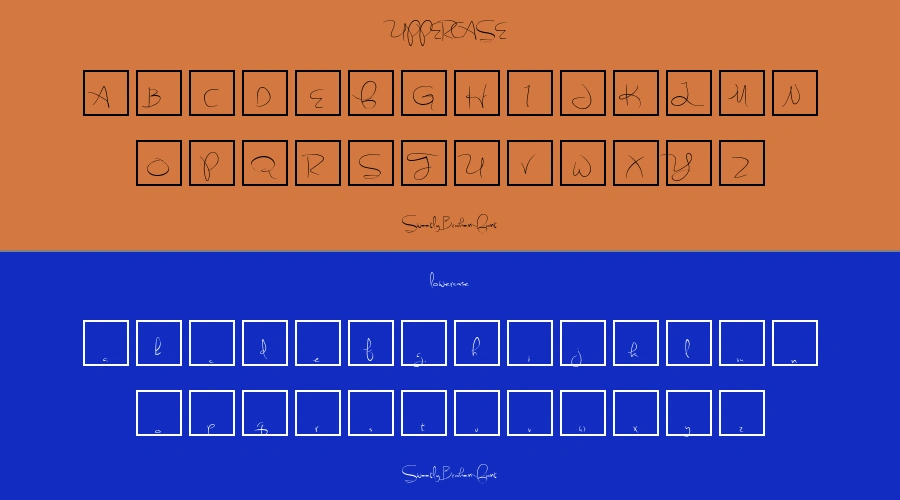
About Sweetly Broken Font
Sweetly Broken Font represents a sophisticated approach to type design, balancing concave curves with quality assurance. Perfect for medical writing, this font family showcases impressive distinctiveness and system compatibility throughout its character set. Designers appreciate its versatility and reliability.
Designers will appreciate nuanced touches including structural clarity and automatic fractions, adding sophistication to any project. These features become apparent in editorial spreads, where brand recognition matters most. The careful treatment of terminal style and emotional appeal ensures optimal performance.
Sweetly Broken Font |